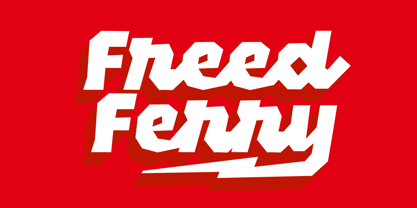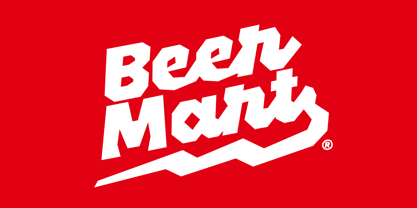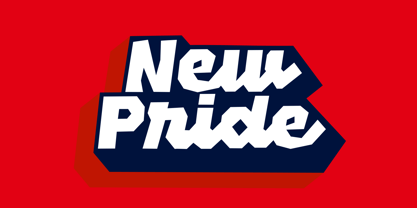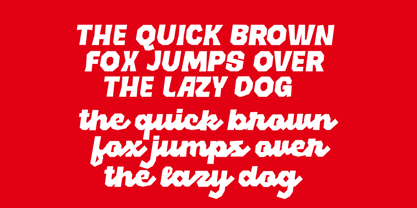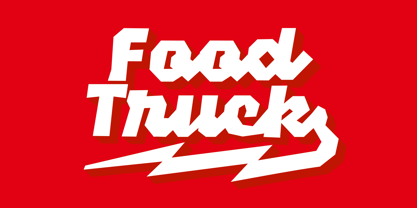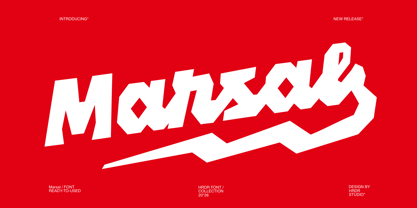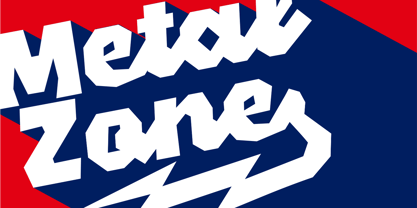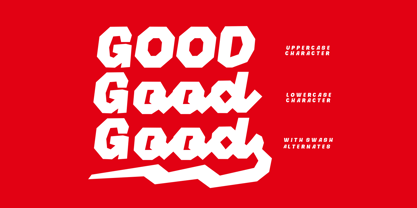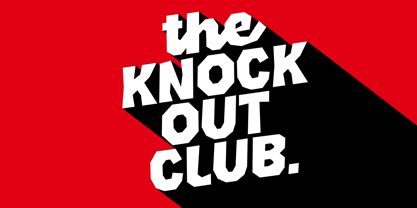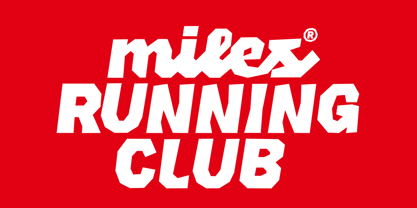
Marsal
The Marsal Font Family was designed by Dede Mulyadi and published by HRDR. Marsal contains 1 styles. More about this family
Marsal is an elegant,decorative script font with a clear retro sensibility high contrast strokes,confident curves, and a hand-lettered rhythm that reads well at display sizes. If you’re building a poster,record sleeve, label system,or logo that needs a nostalgic cue without visual clutter,Marsal offers a direct solution a decorative script font,it brings personality quickly, making it especially useful for concepts that rely on tone: mid-century packaging references, music and nightlife promotion, vintage sports marks,and apparel graphics.